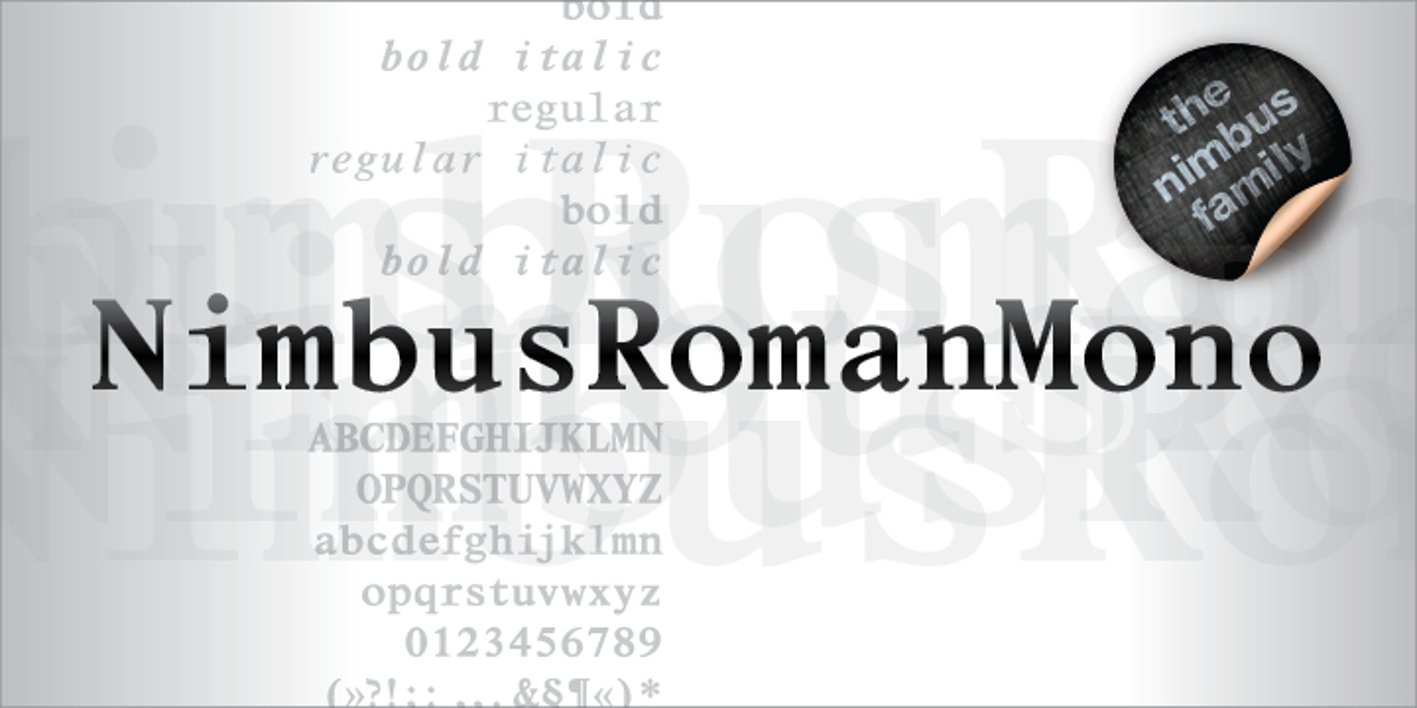
Nimbus Roman Mono Font
Nimbus Roman Mono Font is perfect for code documentation, programming tutorials, software development interfaces, technical manuals, typewriter-style designs, retro computing materials, monospace text applications, terminal emulator displays, vintage technology branding, and classic computing nostalgia projects.
What makes Nimbus Roman Mono Font so exciting is its exceptional combination of classical Roman elegance and monospace functionality that bridges the gap between traditional typography and modern technical requirements through sophisticated design engineering. This meticulously crafted typeface features uniform character spacing with classical serif proportions and technically optimized letterforms that immediately convey both historical gravitas and contemporary functionality. The font's systematic construction and dual-purpose aesthetic create an instant sense of technical precision and classical authority, making it ideal for projects that need to communicate programming expertise, technical documentation clarity, and the enduring connection between classical typography and modern computing to audiences seeking both functionality and aesthetic sophistication in technical communications.
The Nimbus Roman Mono Font family typically includes multiple technical weights and monospace styles, often featuring regular, bold, and italic variations along with carefully engineered character spacing. Monospace font families frequently offer extensive character sets including programming symbols, mathematical operators, and technical notation that ensure optimal functionality across diverse coding requirements and technical documentation applications.
The monospace nature of Nimbus Roman Mono Font makes it particularly effective for applications where character alignment and technical precision are essential for code readability and documentation clarity. Software developers and technical writers will find this font especially valuable for materials that must maintain perfect character spacing while providing the classical elegance that distinguishes professional technical communications.
What distinguishes Nimbus Roman Mono Font is its remarkable ability to provide technical functionality while maintaining classical typographic beauty. This unique characteristic makes it suitable for both hardcore programming applications and sophisticated technical presentations where projecting coding competence and aesthetic sensibility must coexist harmoniously.
Professional designers recognize that Nimbus Roman Mono Font brings invaluable technical credibility to projects across industries including software development, technical documentation, programming education, and computing history. Its monospace character and classical appeal make it essential for organizations whose mission centers on advancing programming excellence, improving technical communication, and creating meaningful connections between classical typography principles and modern computing requirements.
The systematically engineered design of Nimbus Roman Mono Font ensures consistent technical performance across all programming-focused communication applications while honoring the fundamental principles of both classical typography and modern monospace functionality.